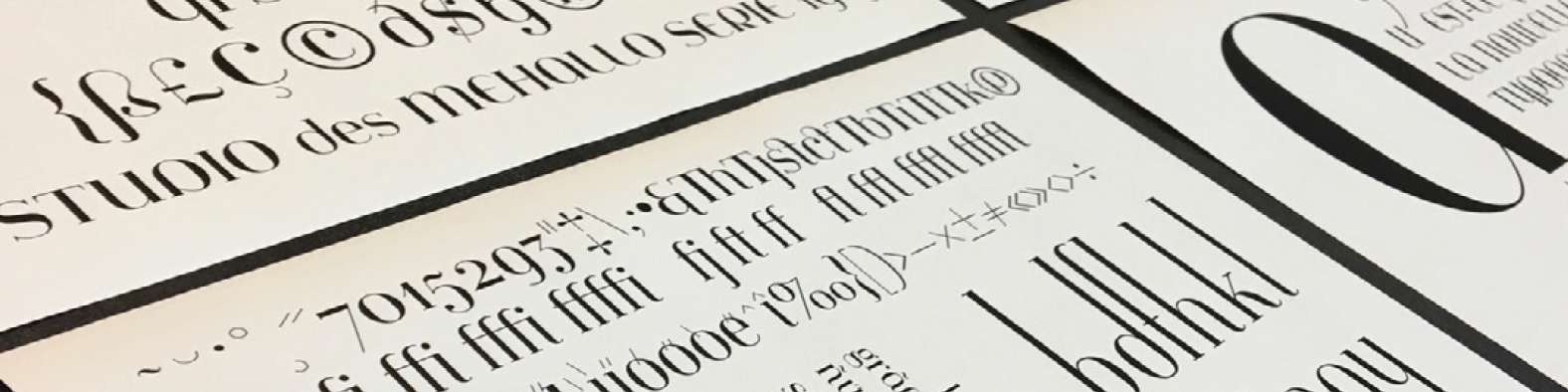
steve mehallo
Freelance graphic designer steve mehallo originally started designing fonts for his own use.
And each font exploration became niche experiments all their own; mehallo develops his typefaces typically as a response to a design problem, a historical quandary or as a need for that perfect font for a certain job. Precise outlines, even on the rough stuff, are all part of mehallo's typographic repertoire.
Today, custom font development and logo renderings are a speciality. All of his fonts have deep roots, detailed design research is behind every letter – mehallo also teaches graphic design history and typography courses in one of his other lives.